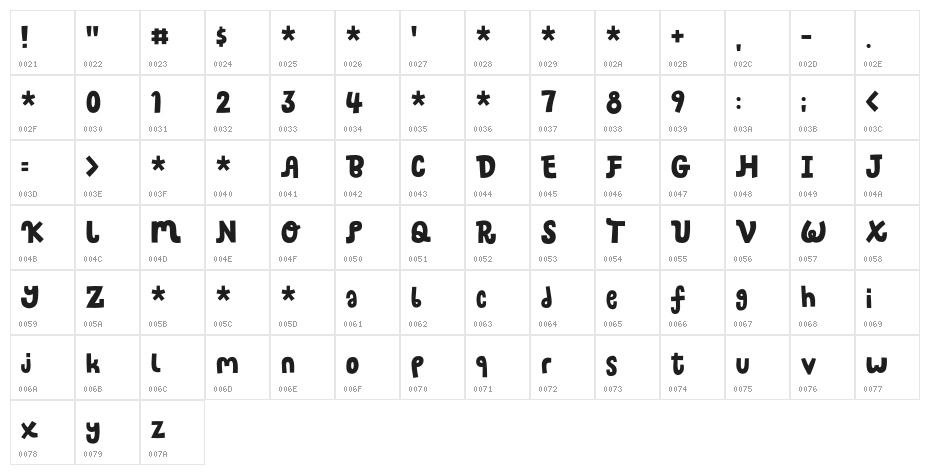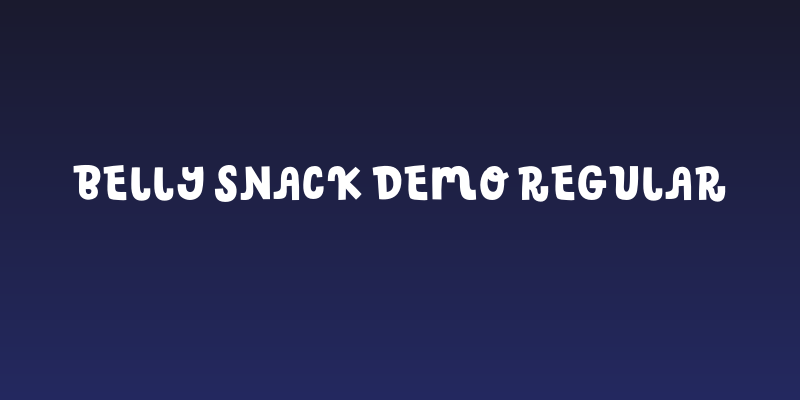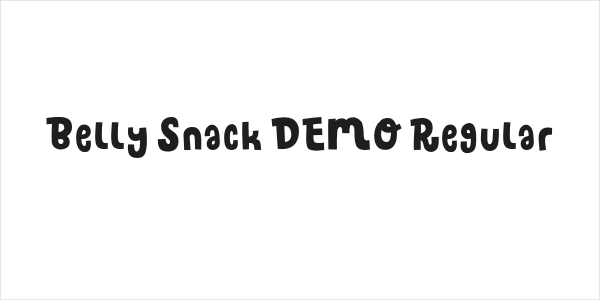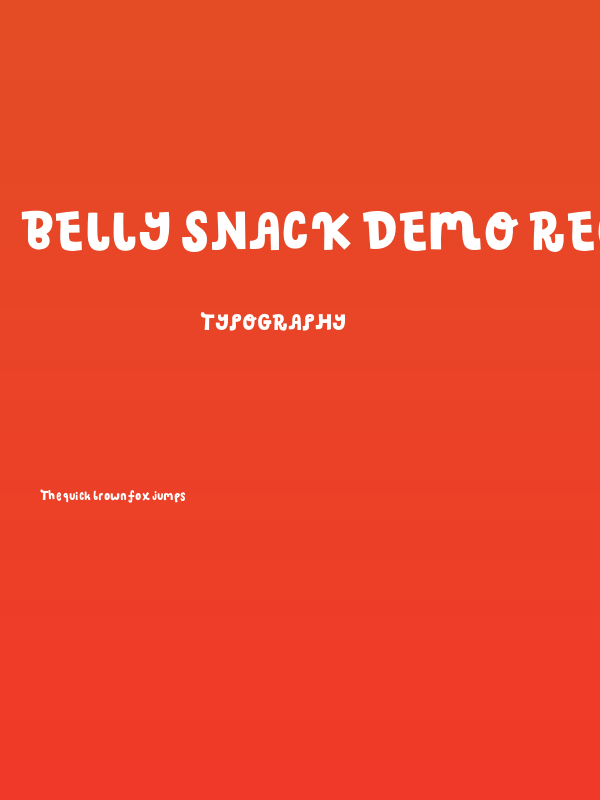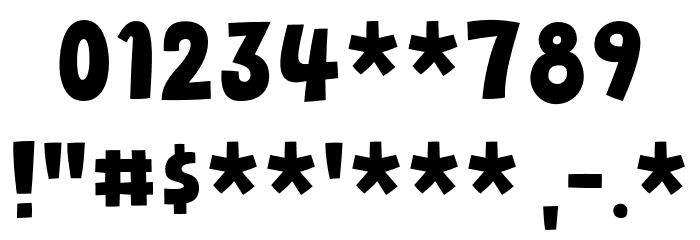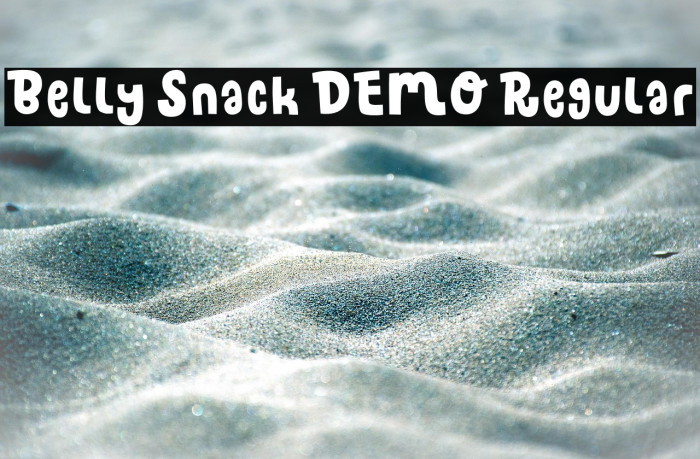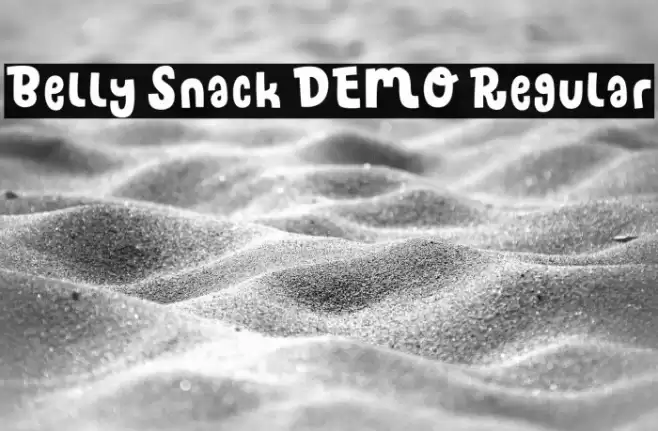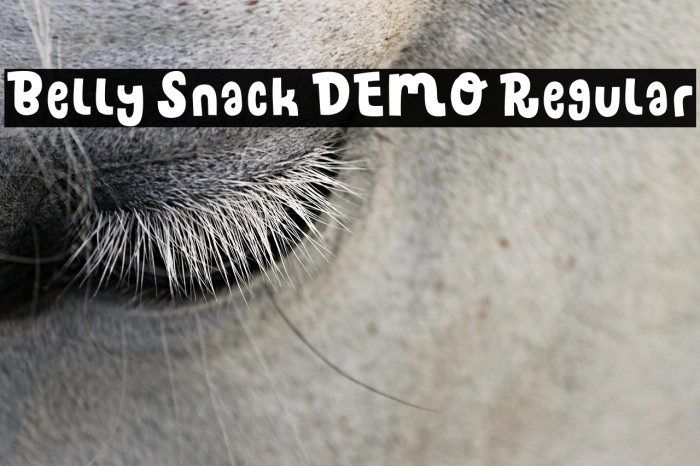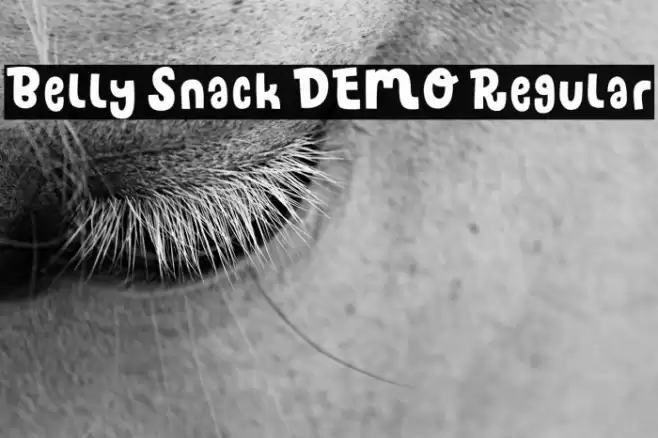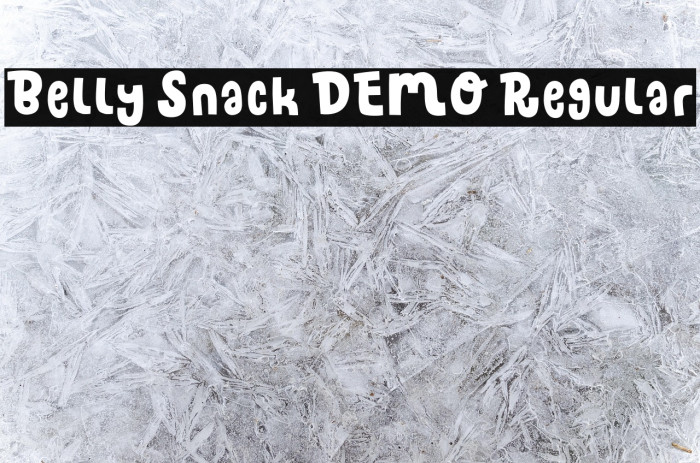
Belly Snack DEMO Regular Font
Belly Snack DEMO Regular Description
This playful and bold font features a whimsical design with rounded edges and a slightly irregular shape, giving it a hand-drawn appearance. The characters are thick and substantial, providing a strong visual impact. The uppercase and lowercase letters maintain a consistent style, with a quirky and fun aesthetic that is both approachable and eye-catching. The numbers and special characters follow the same playful theme, making the font versatile for various creative projects. Its unique style makes it suitable for children's books, playful branding, or any design that requires a touch of fun and creativity.
| Overall Style | Playful |
| Proposed Projects | Ideal for children's books, playful branding, posters, and creative designs. |